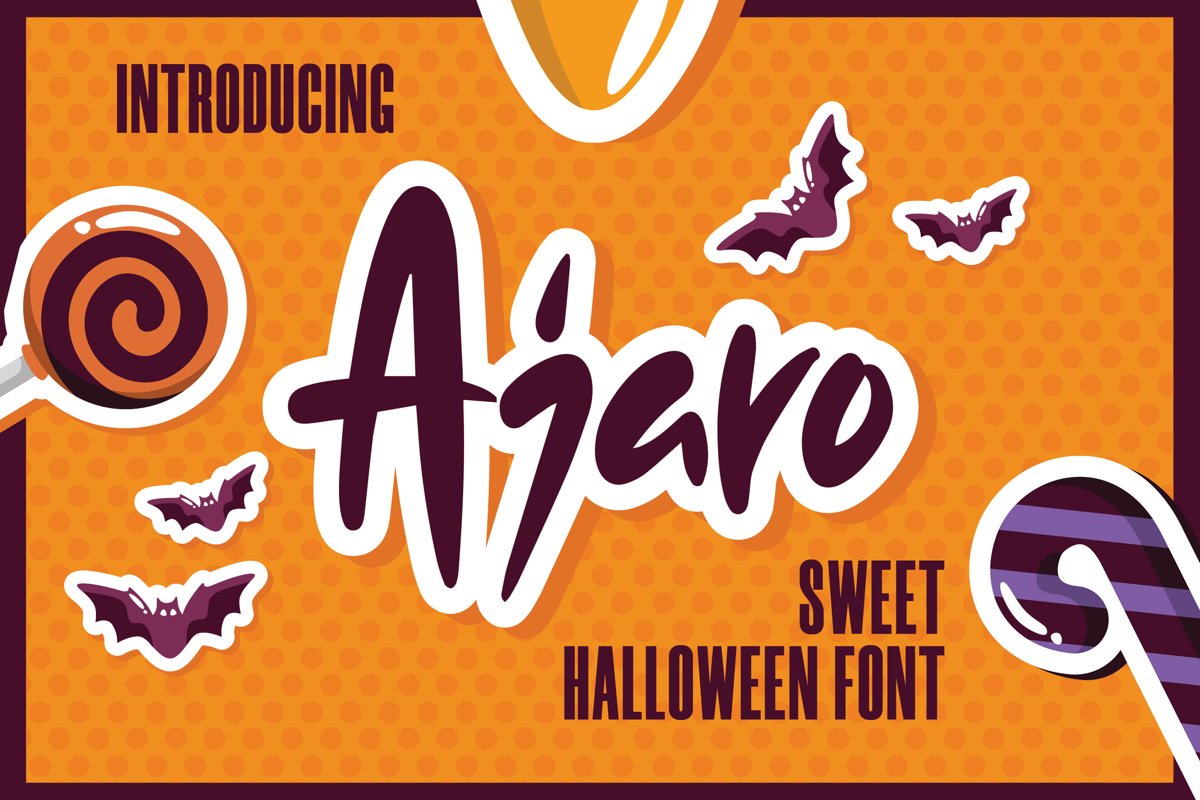
Ajaro - Sweet Halloween Font that contain lowercase, uppercase, symbol, and also support multi language. There’s a lot ligatures in this font. This Font also comes with ligatures, alternates and many more. this font suitable for fashion, branding, catalog and other design what you want.
Ajaro